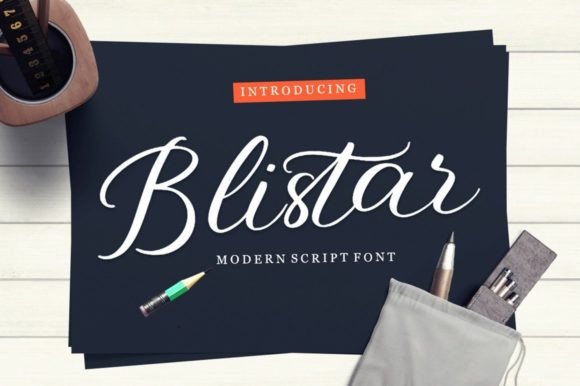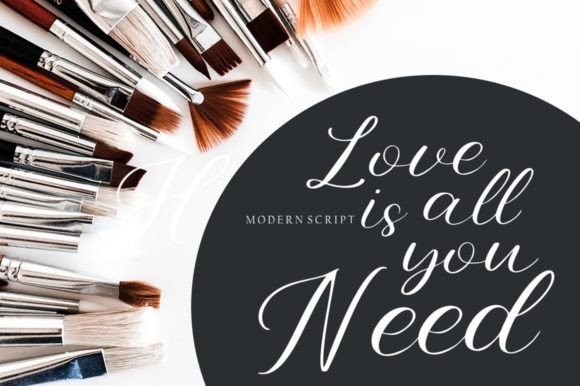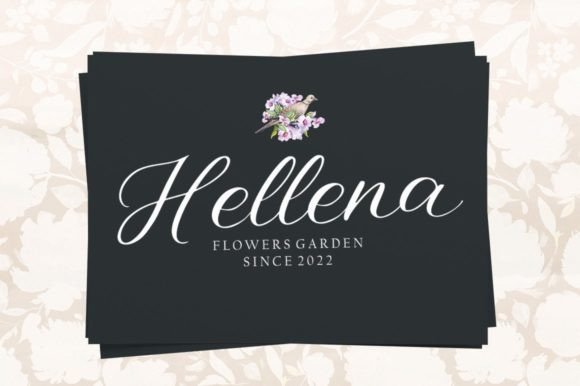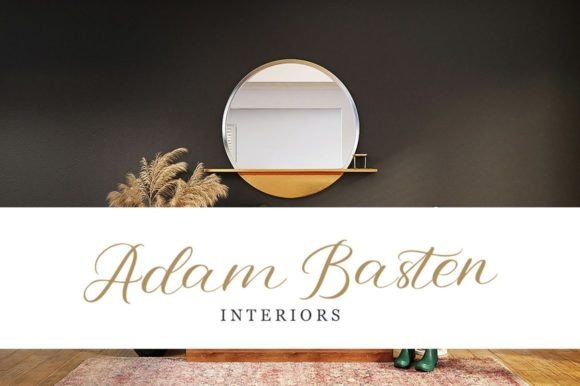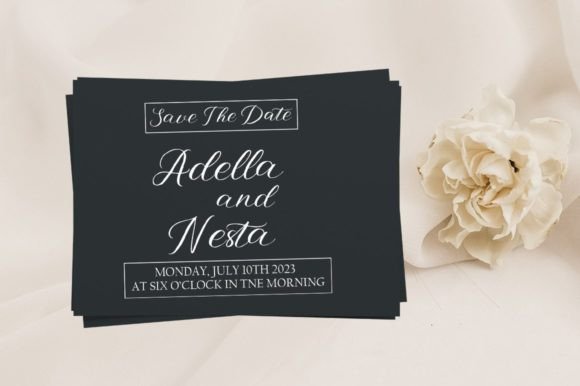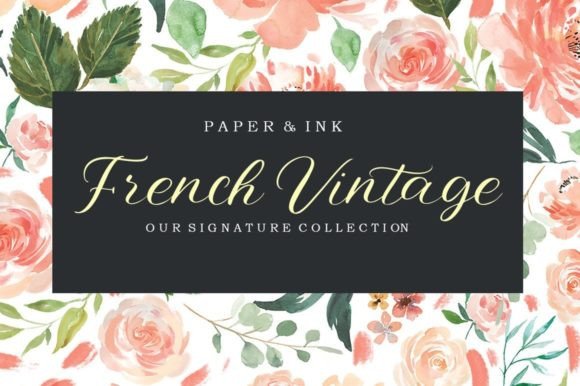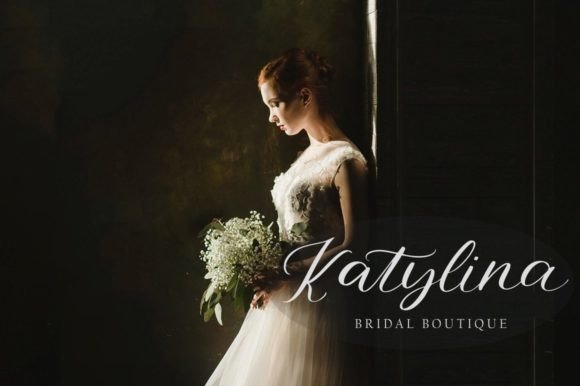
Blistar Font
About Blistar Font
Blistar emerges as a contemporary and dynamic handwritten brush font, boasting an organic and energetic style that lends itself to diverse applications. This versatile typeface is well-suited for an array of purposes, including titles, signatures, logos, correspondence, wedding invitations, letterheads, signage, labels, newsletters, posters, badges, and more.
The distinctive charm of Blistar lies in its ability to inject a sense of modernity and spontaneity into your design projects. The brush strokes capture an organic flow, providing a lively and dynamic aesthetic that stands out in various contexts. Whether you’re crafting a unique logo or designing wedding invitations, Blistar’s energetic style adds a touch of vibrancy to your creations.
What sets Blistar apart is its PUA encoding, granting you easy access to a wealth of glyphs and swashes. This feature ensures seamless integration into your design workflow, allowing you to explore a plethora of creative possibilities. The versatility of Blistar is further highlighted by its suitability for both digital and print media.
Imagine Blistar gracing the headlines of your posters, exuding a contemporary and captivating flair. Picture it enhancing the branding elements of your products, creating a memorable and stylish visual identity. The font’s adaptability makes it an invaluable tool for designers looking to infuse their projects with a fresh and modern vibe.
In essence, Blistar is not just a font; it’s a dynamic expression of modern design. It doesn’t merely convey words; it tells a story through its organic brush strokes. With its PUA encoding, Blistar becomes a versatile companion in your creative endeavors, ready to bring an energetic and contemporary touch to every project. Whether you’re crafting logos, invitations, or signage, let Blistar be the font that elevates your designs with its modern, handwritten charm.